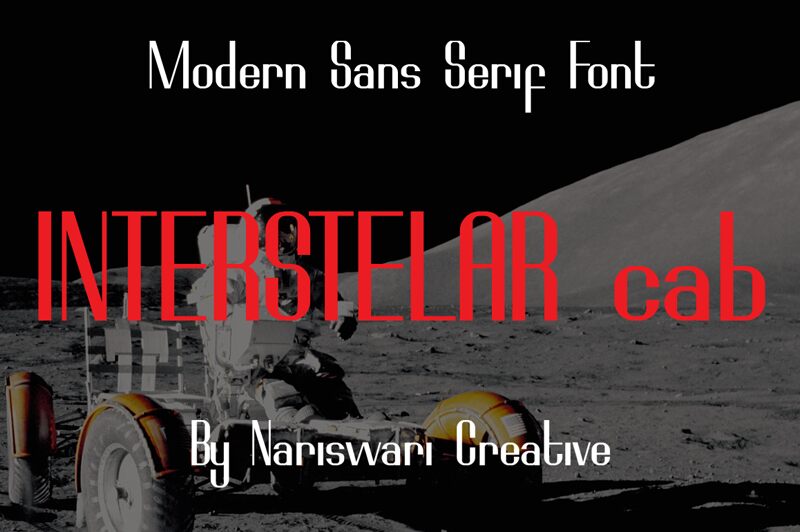
Meet INTERSTELAR cab, a captivating font designed by Nariswari Creative. With its sleek and modern sans serif style, this semi-light font is perfect for projects that require an elegant and sophisticated touch.
Its extra-condensed width allows for maximum space efficiency, making it ideal for bold headings and eye-catching titles. Whether you're designing a futuristic website, creating a stylish logo, or crafting a visually stunning brochure, INTERSTELAR cab will bring your project to life with its unique blend of sophistication and minimalism.